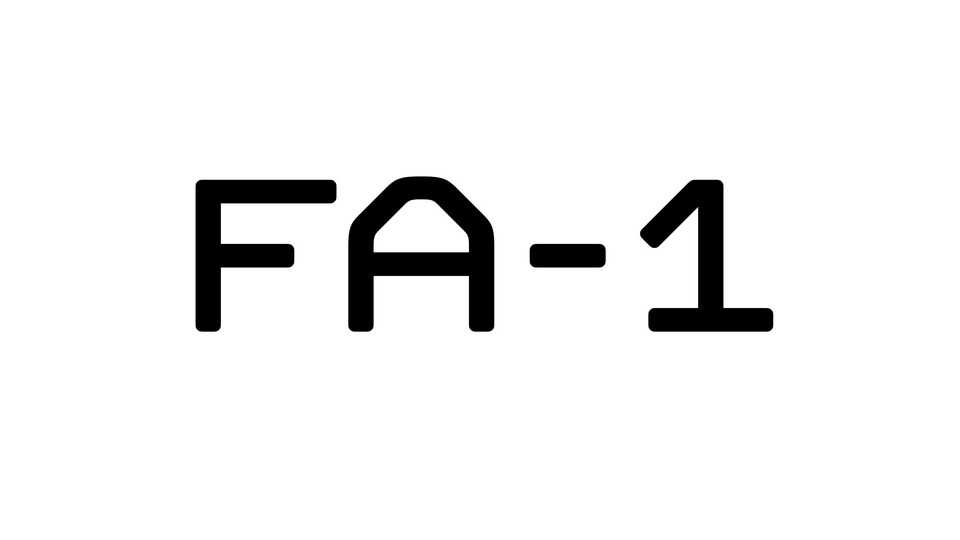
Download FA-1 font, a typeface that extracts and reconstructs the sci-fi elements of the previously created F5.6. FA-1 font is a mixture of the design of a standard typeface for machine engraving and the design of a typeface mainly composed of straight lines that appears in science fiction works.
Designer: Sora Sagano